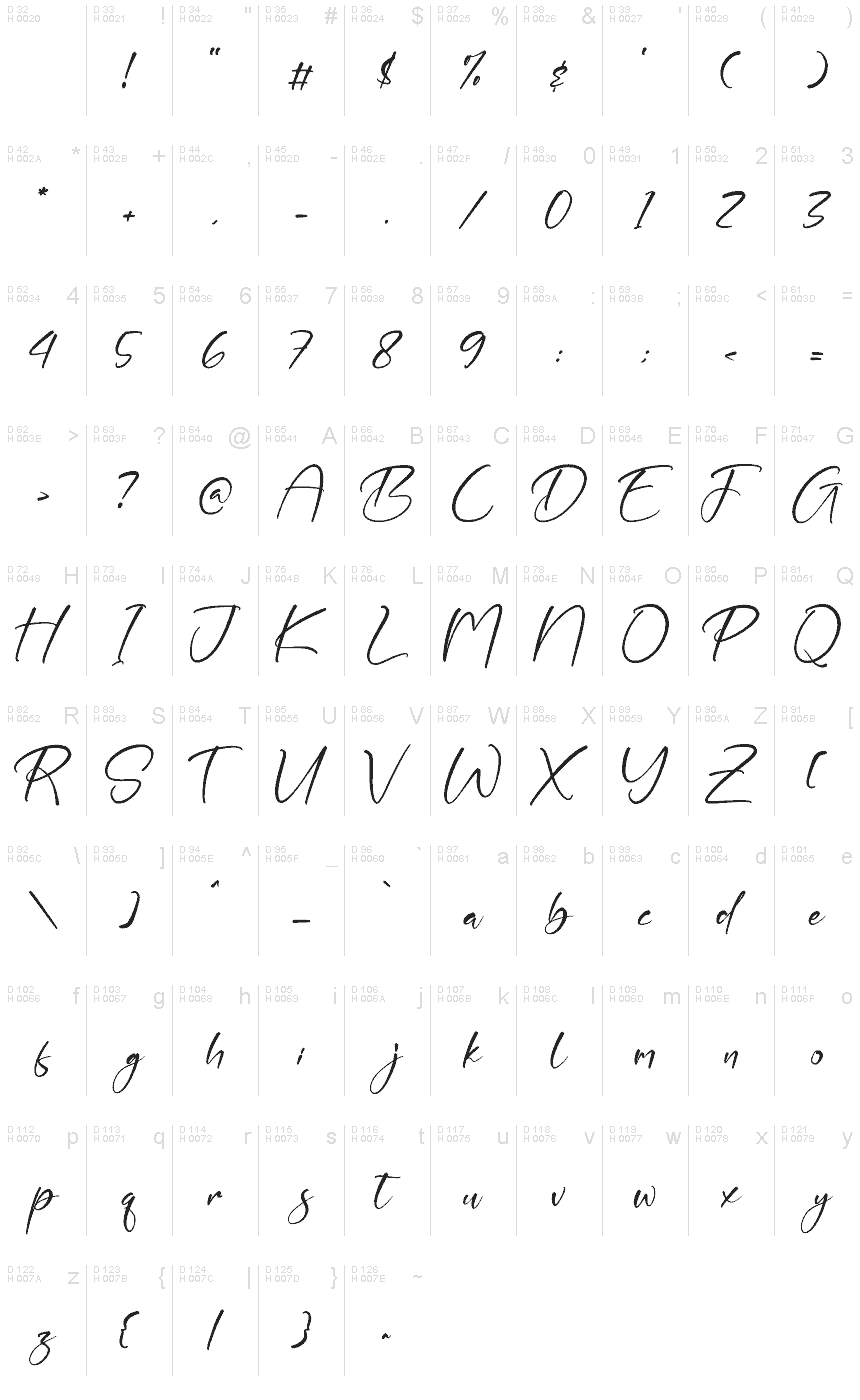
Ralkinsoon
Ralkinsoon font by Letterena Studios is a light handwritten font that embodies an expressive and flowing character. Its energetic form and style make it reminiscent of modern script fonts. By combining human imperfection with professional elements, the letters boast a harmonious appearance that preserves their elegance without abandoning readability.